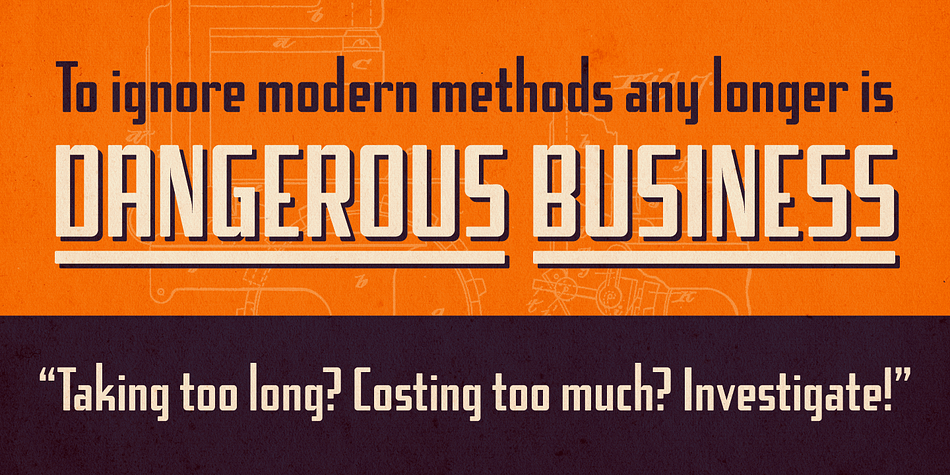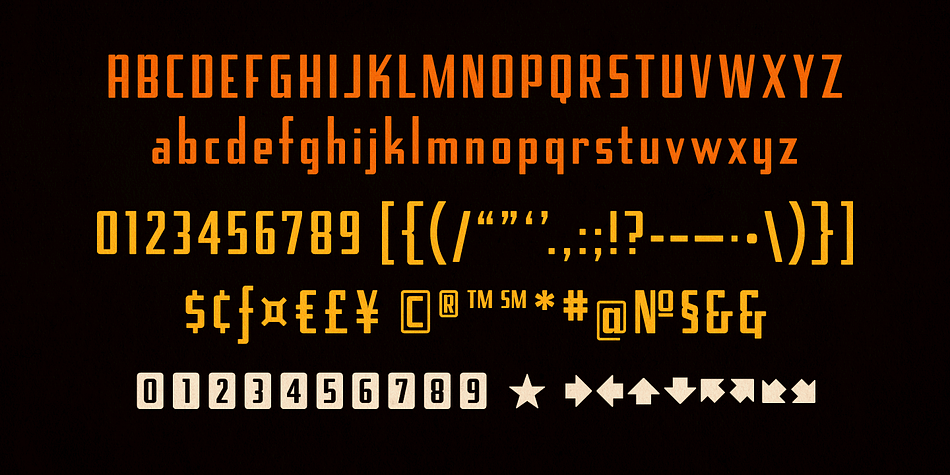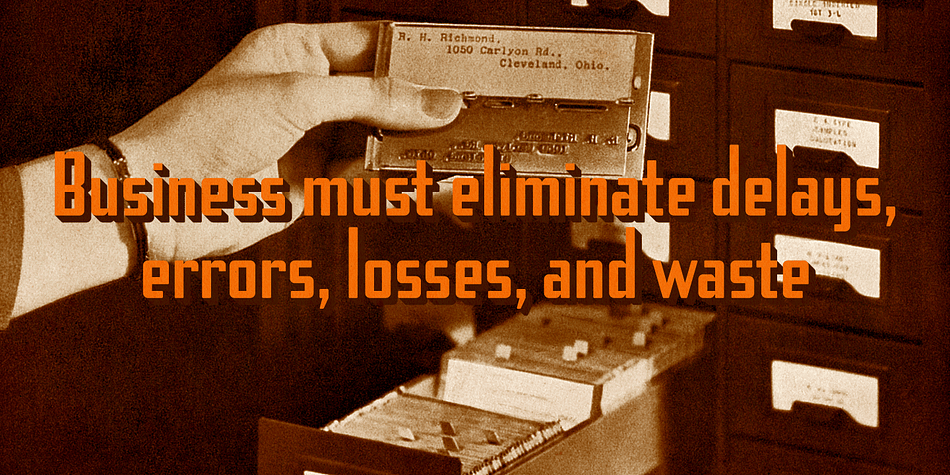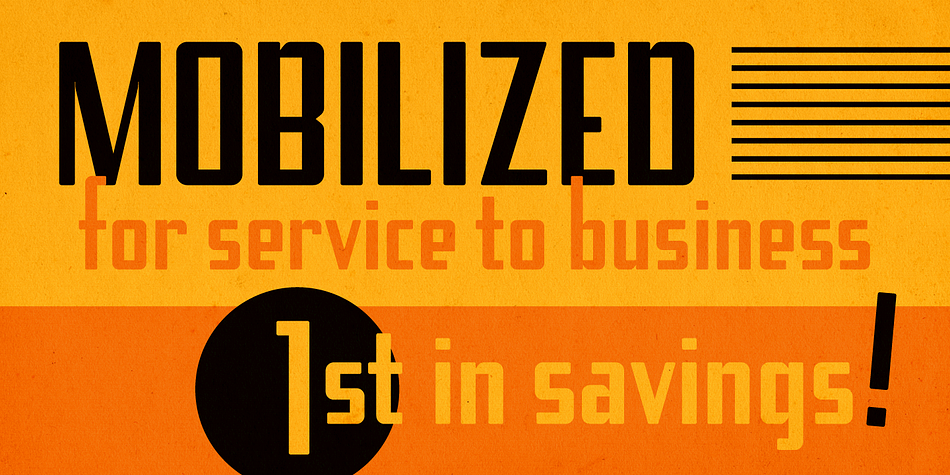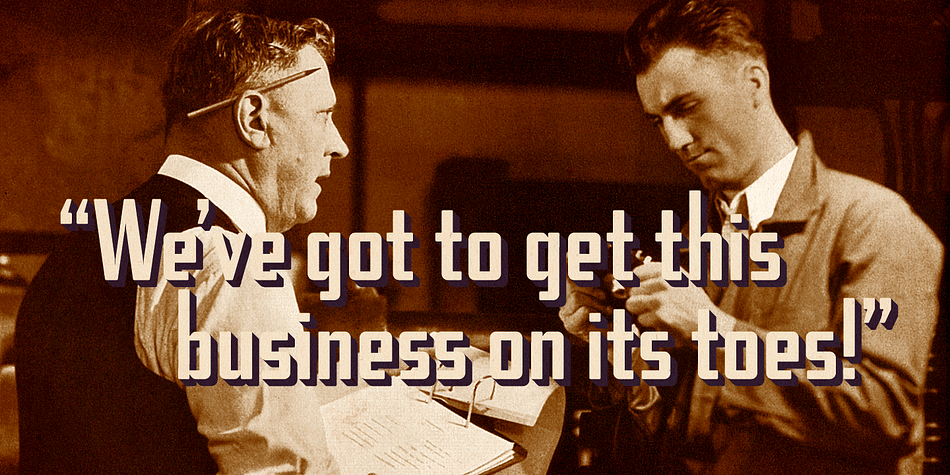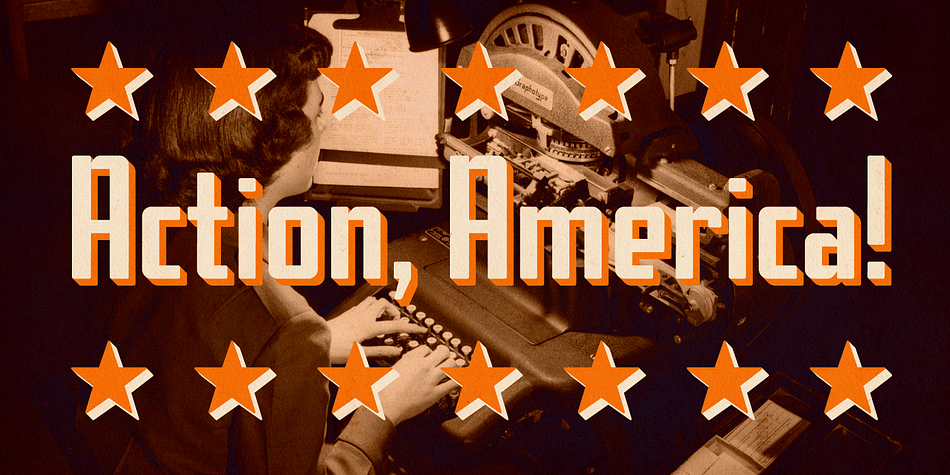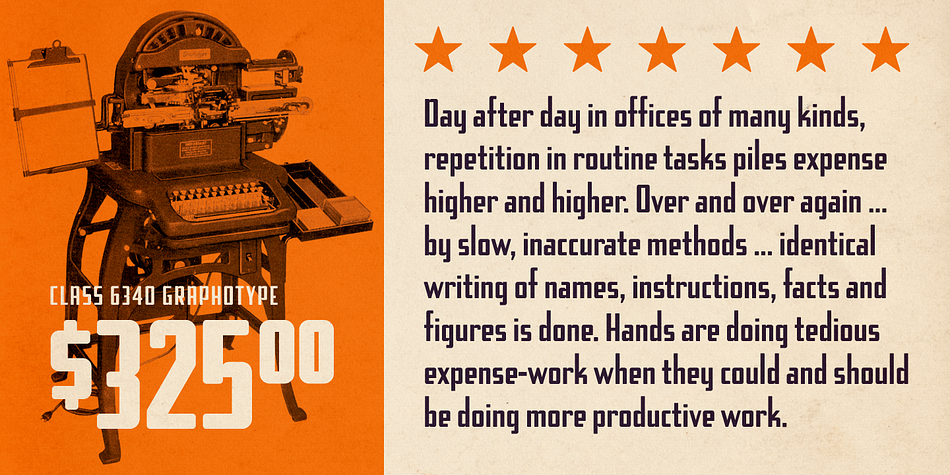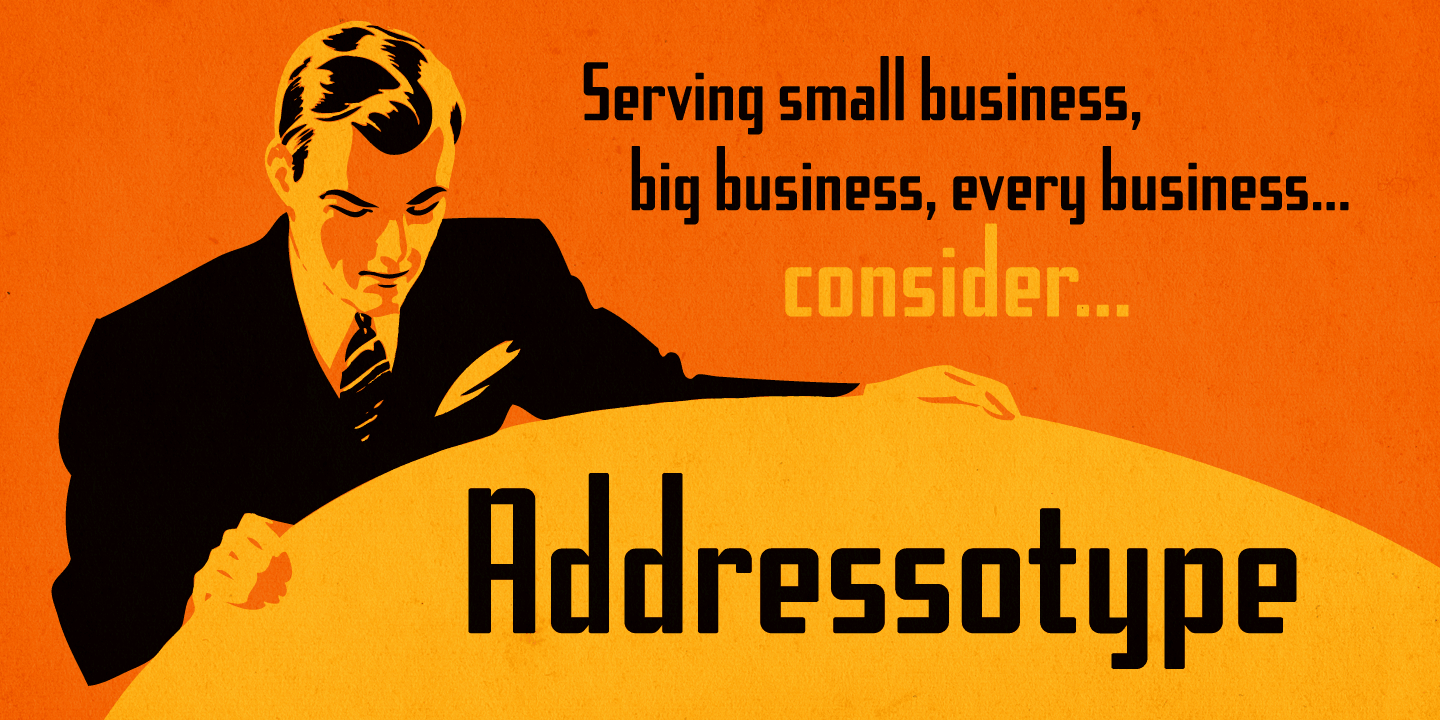
Designed by Jesse R. Ewing and Sam Potts, Addressotype is a display sans font published by Midwest Type.
Addressotype is based on lettering from a vintage ad for the Addressograph-Multigraph Corporation, manufacturers of the Addressograph addressing machine. In days when the U.S. postal service delivered everything, mailing addresses were as important as email addresses are today. The Addressograph machines stamped out dog-tag-like plates that were used to print mailing labels at high volume. Embodying the company’s work ethic and durability, Addressotype recalls the gaspipe form of lettering popular in the 30s and 40s, updated to reflect the “streamlining” trend popular during the period.